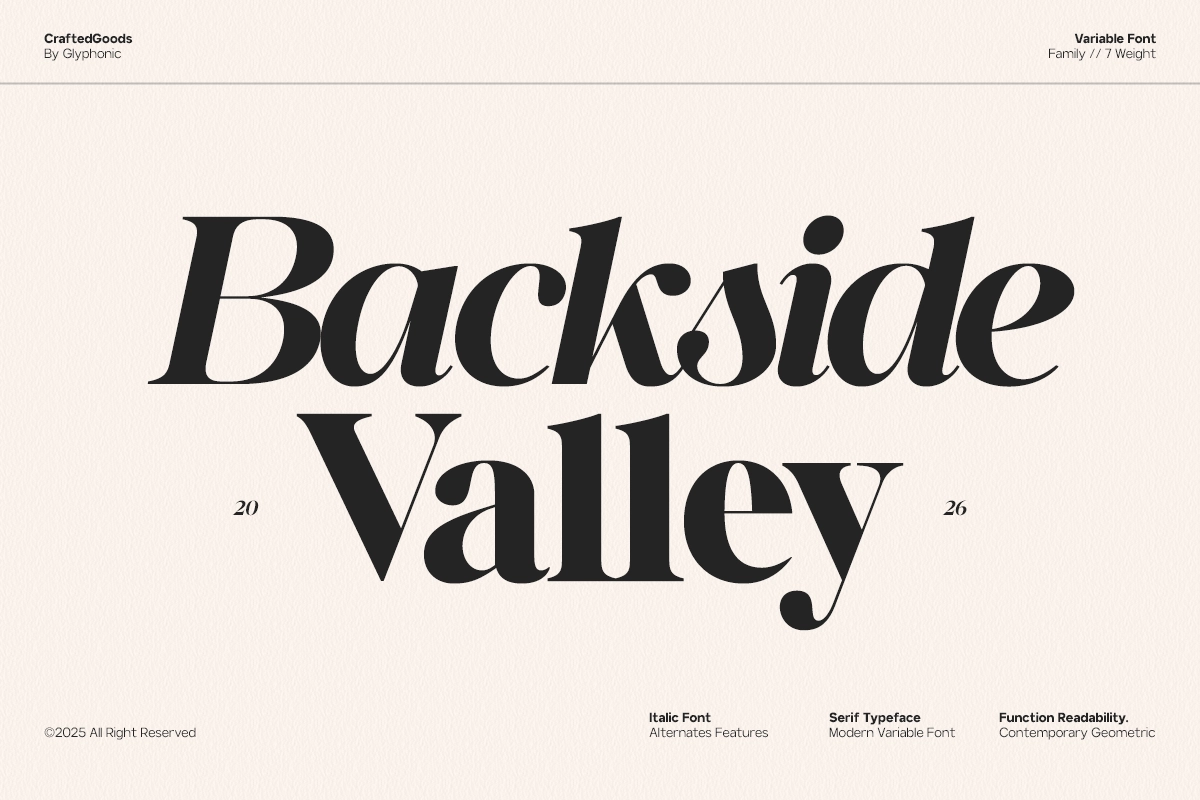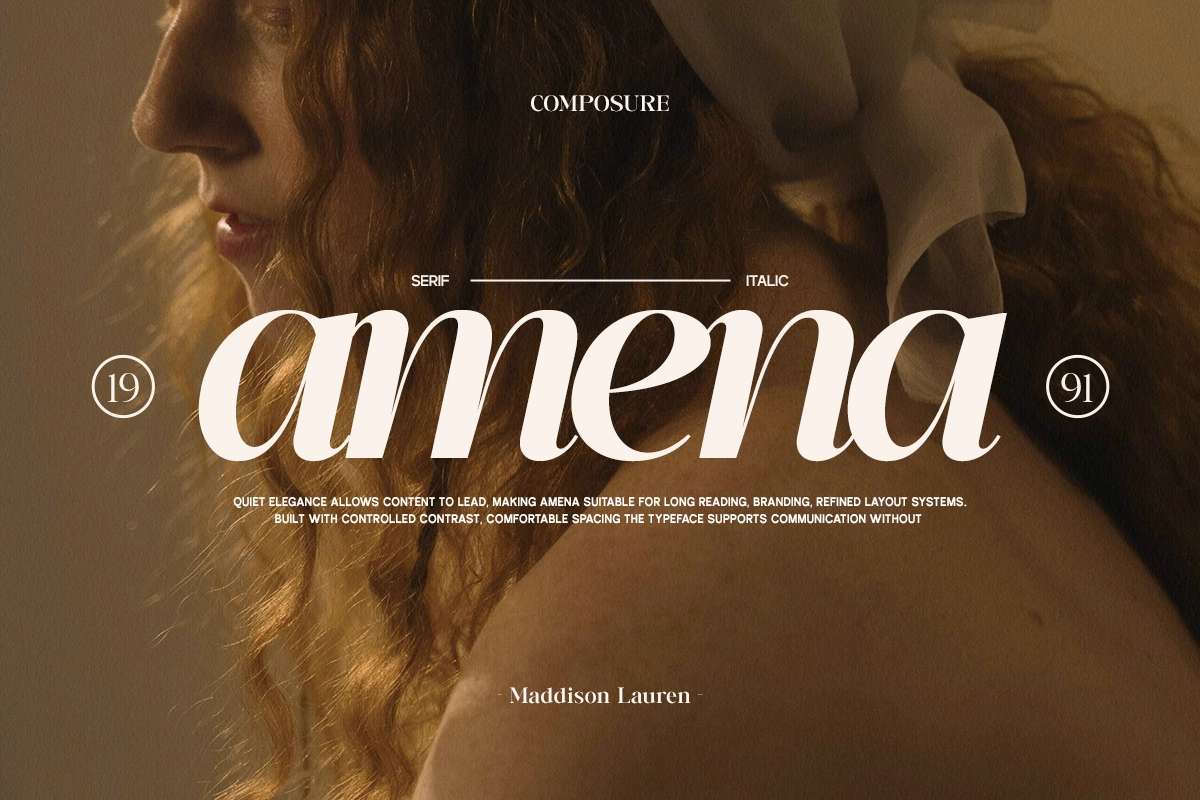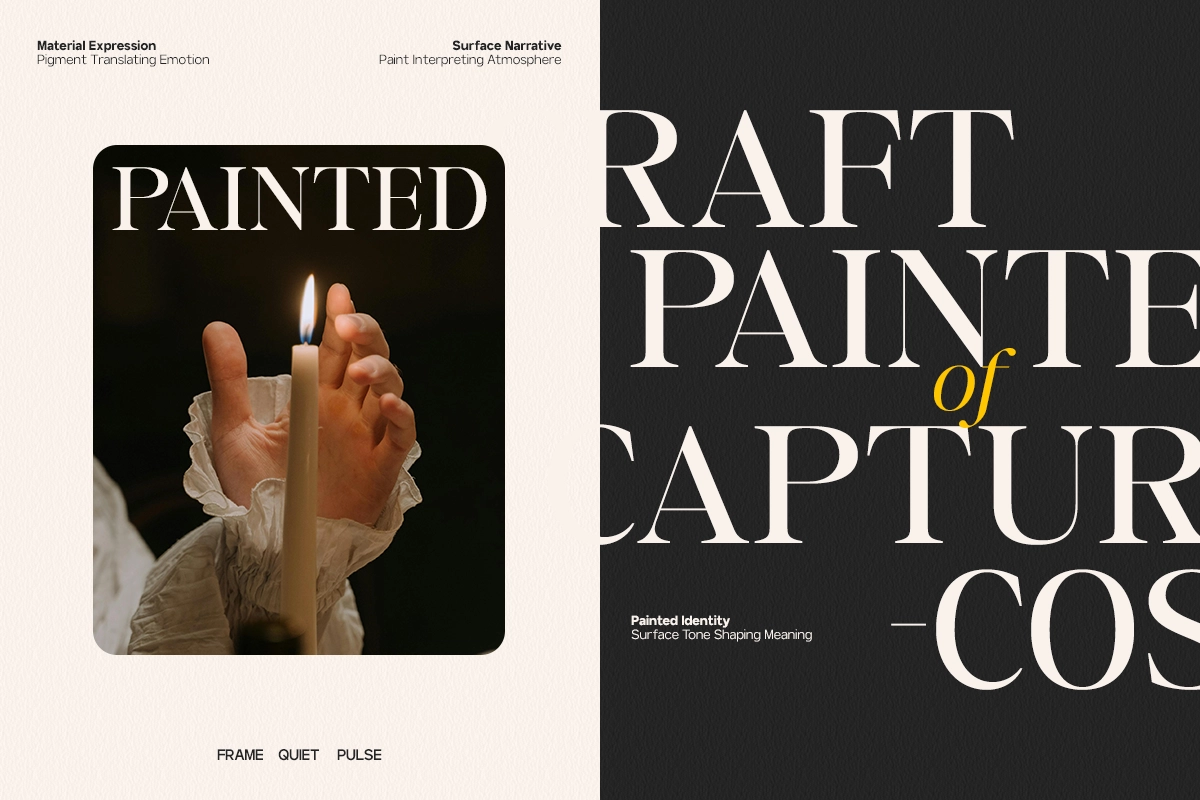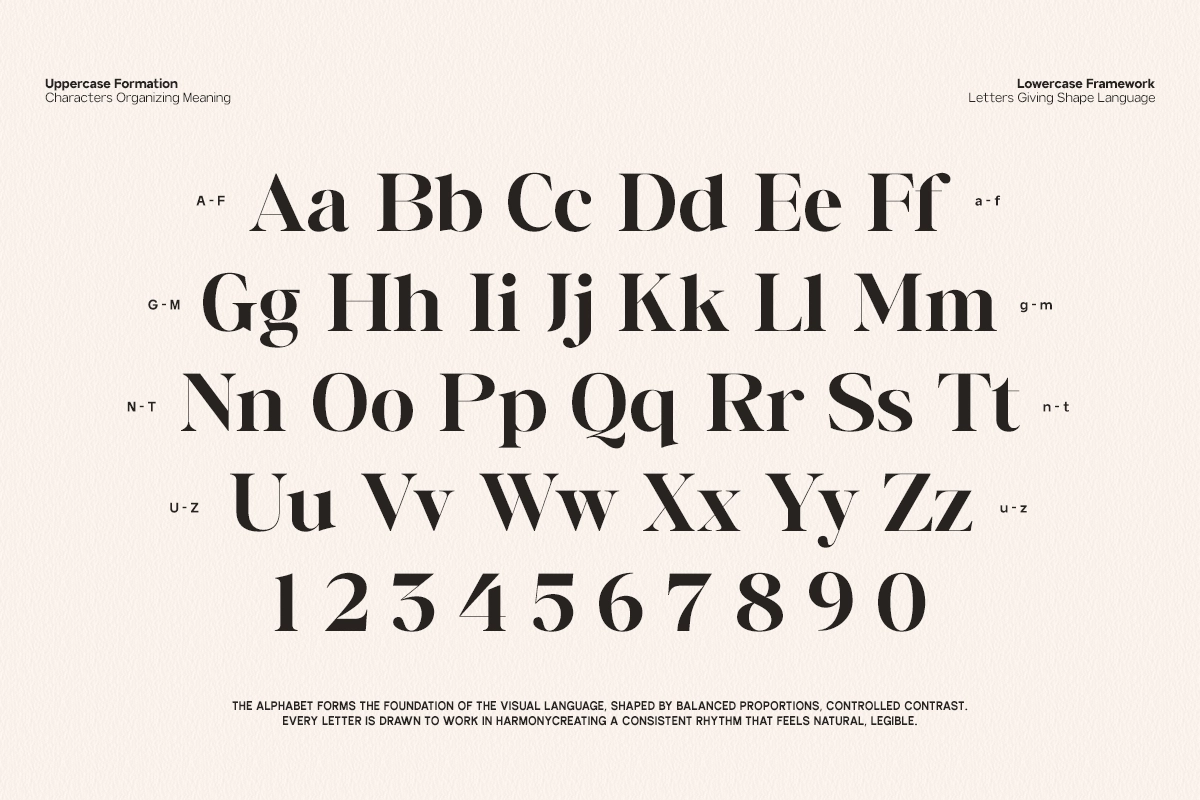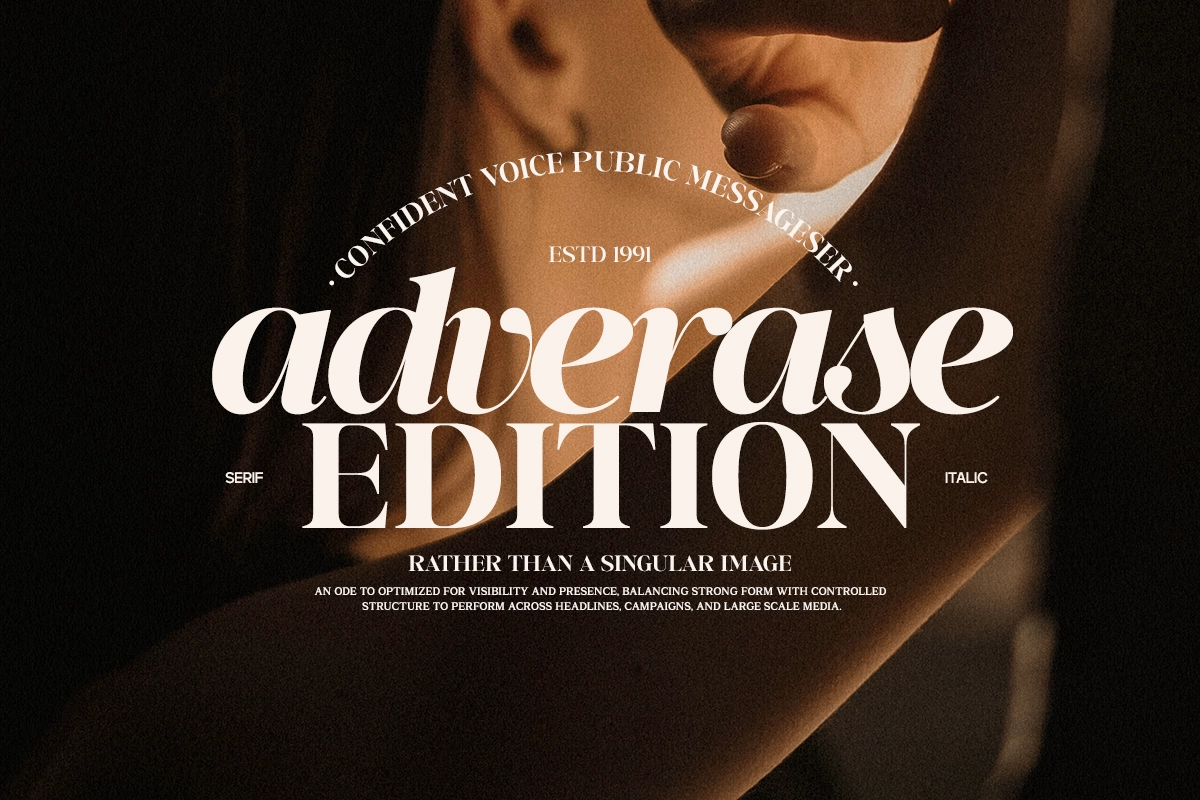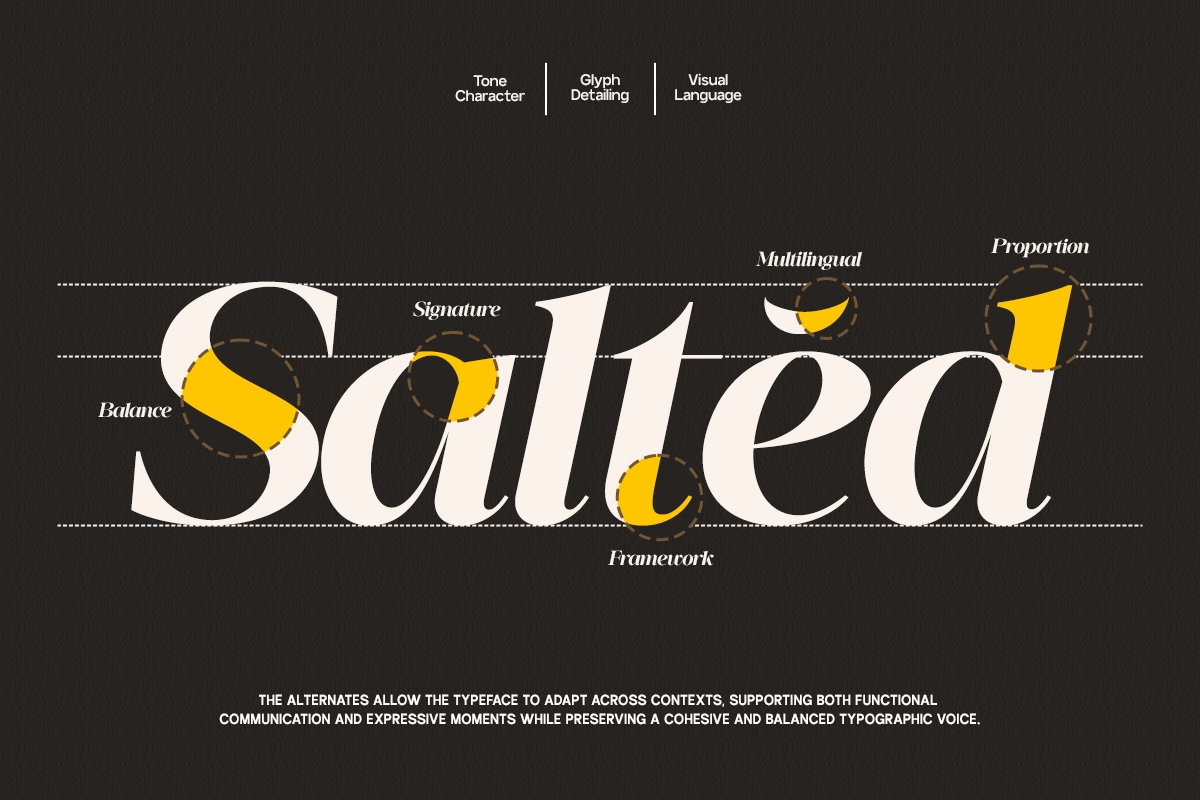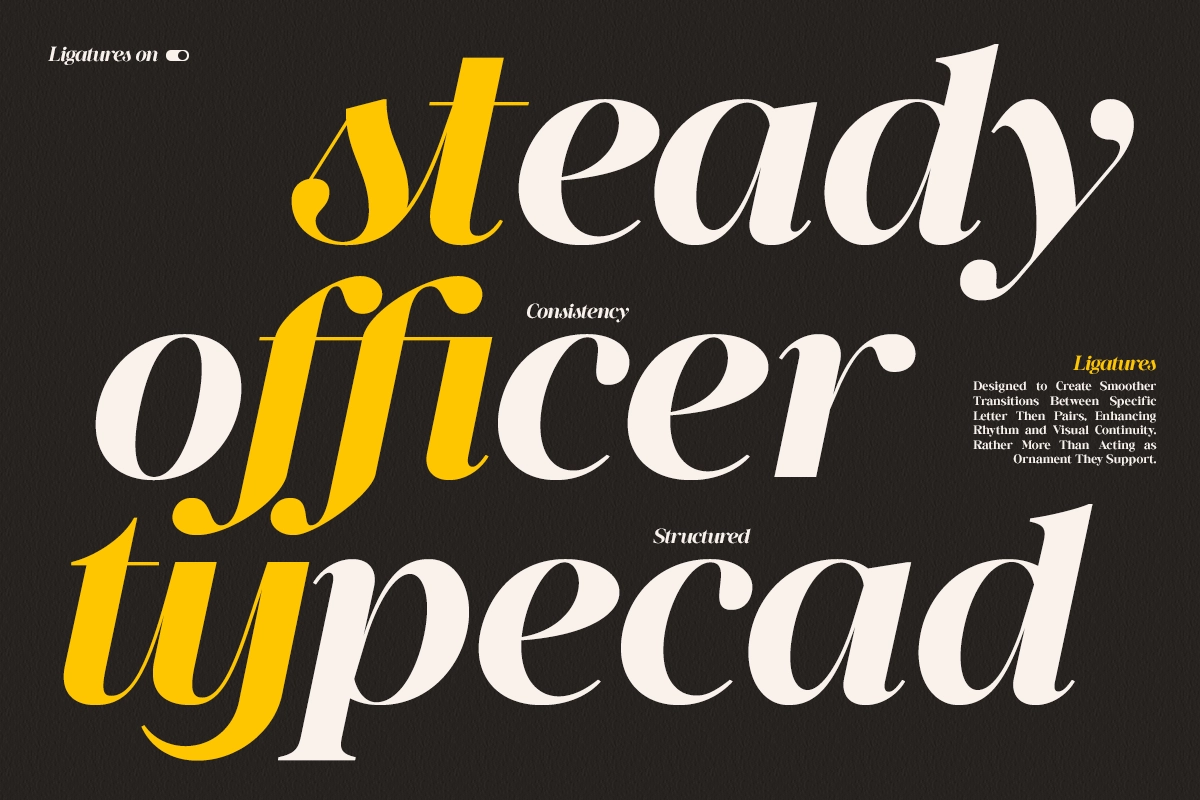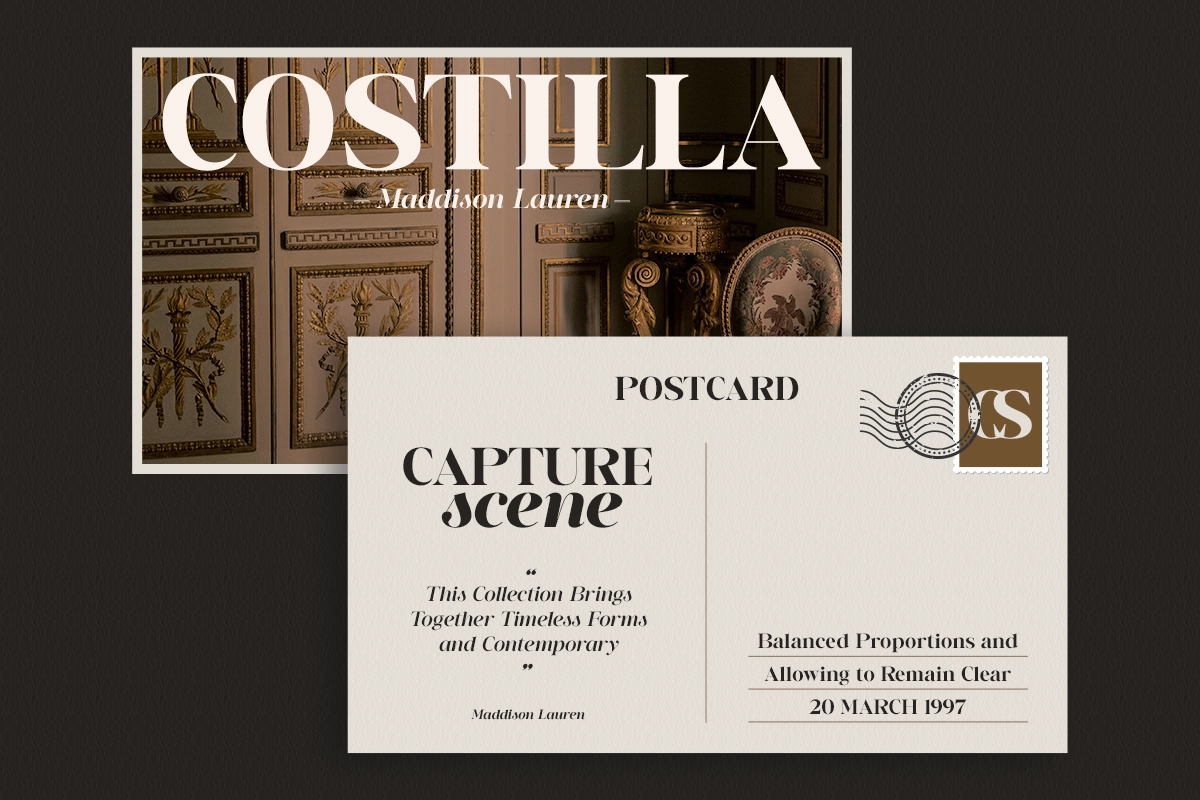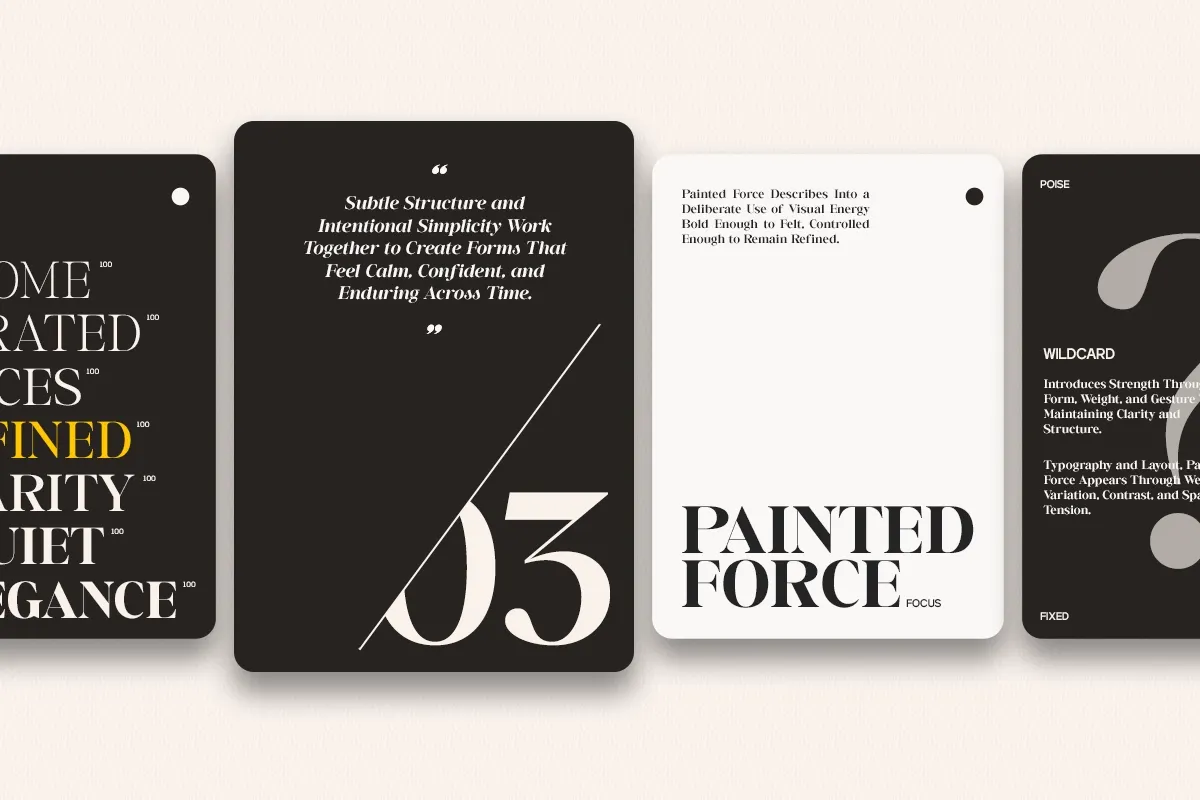
GC Backside Valley Elegant Modern Font
Introducing GC Backside Valley Elegant Modern Font — a refined serif typeface that combines timeless elegance with a clean, modern edge. Designed with balanced proportions, smooth curves, and confident letterforms, it offers both sophistication and readability for contemporary design projects.
Perfect for branding, packaging, editorials, and headline typography, this typeface blends classic charm with a fresh modern sensibility. Its elegant structure and versatile style make it ideal for creating luxury brand identities, stylish visual systems, and polished print or digital designs.
GC Backside Valley elevates every composition with its graceful details, strong presence, and lasting aesthetic appeal.
• Numbers & Punctuation
• Modern Serif Construction
• Multilingual Support (170+ Languages)